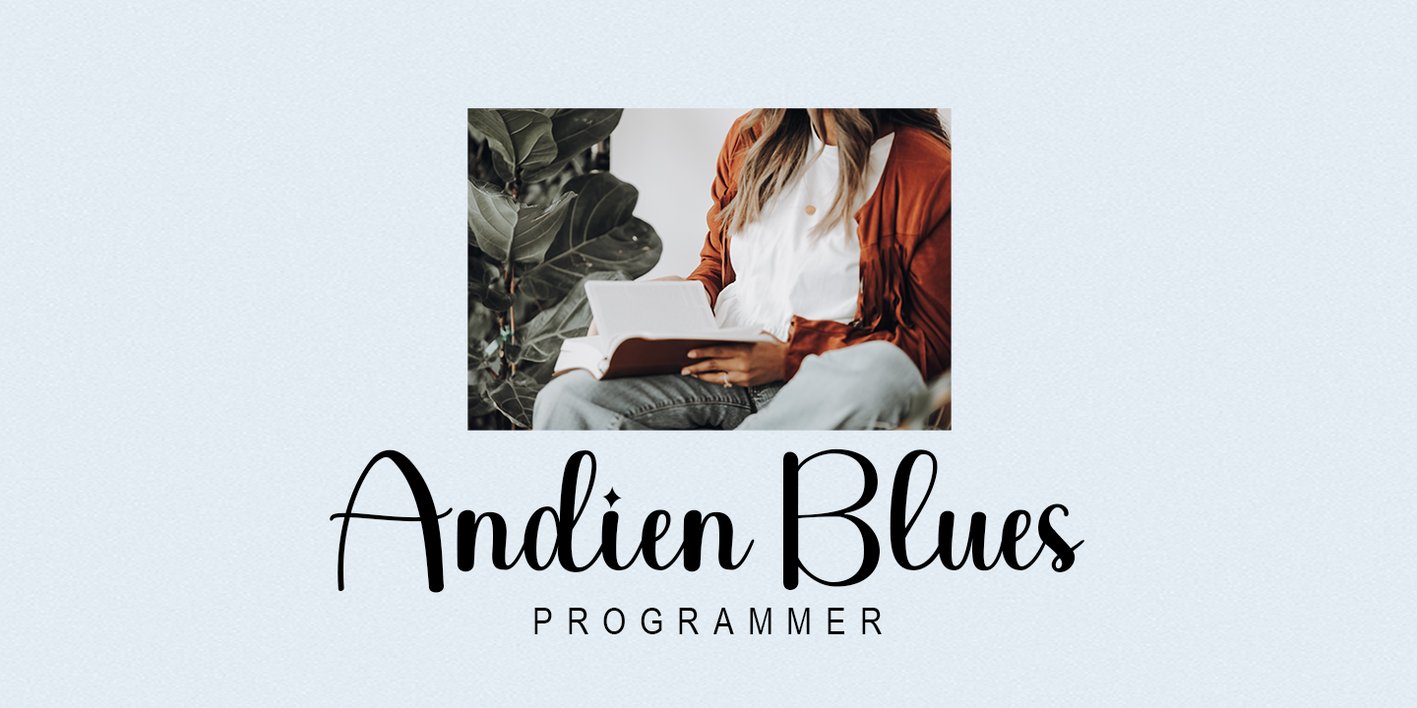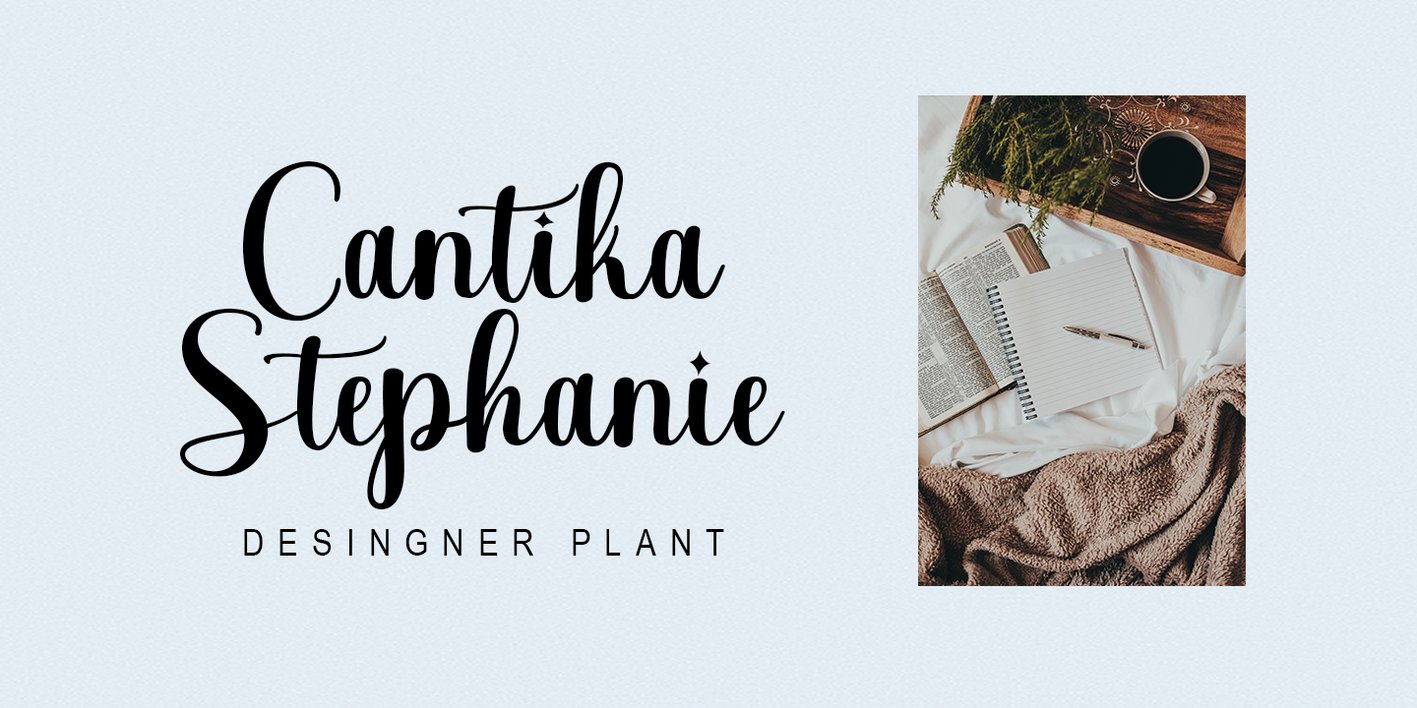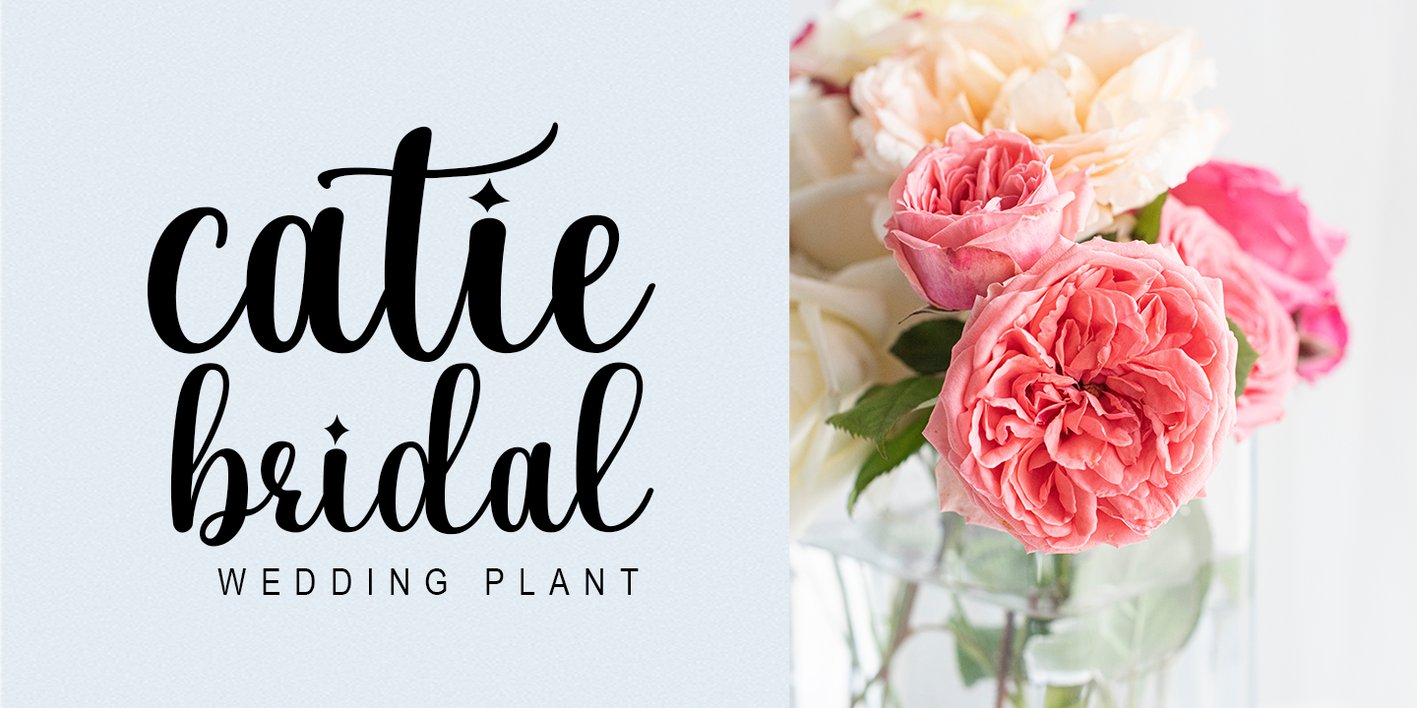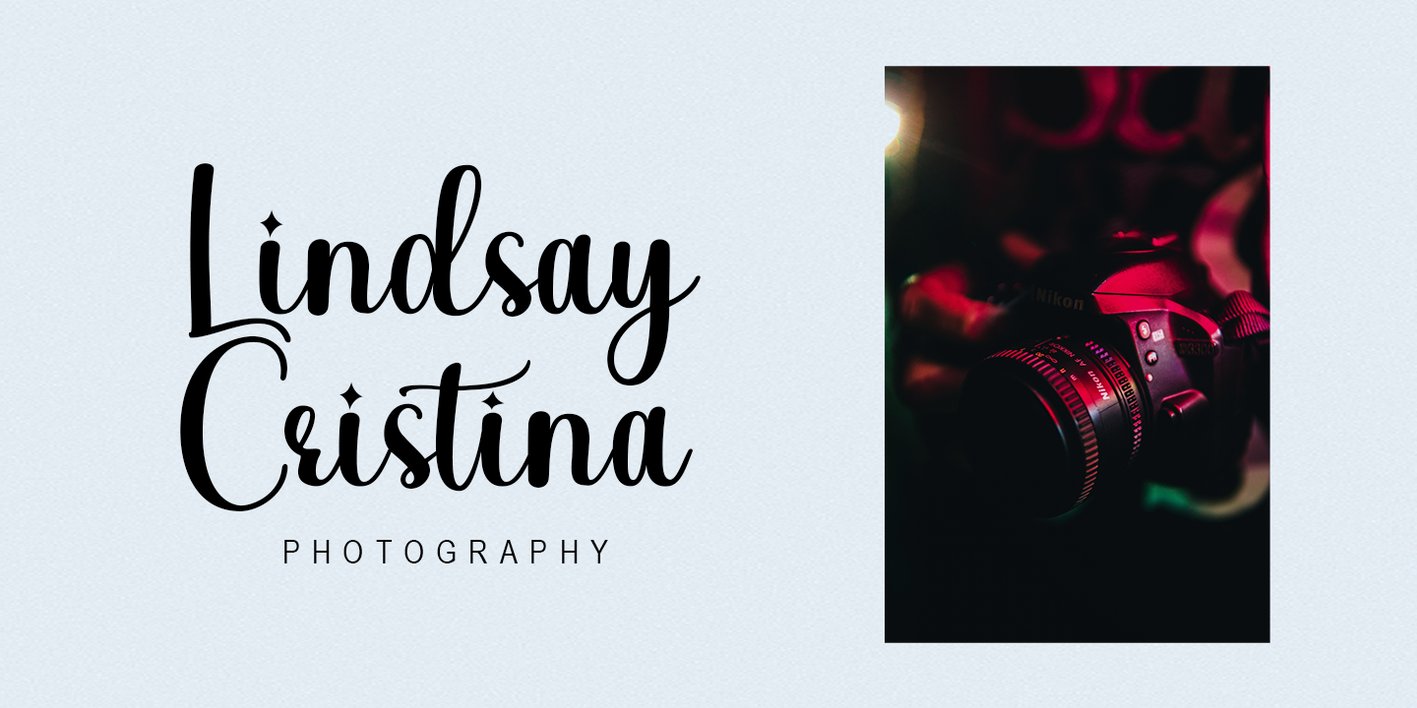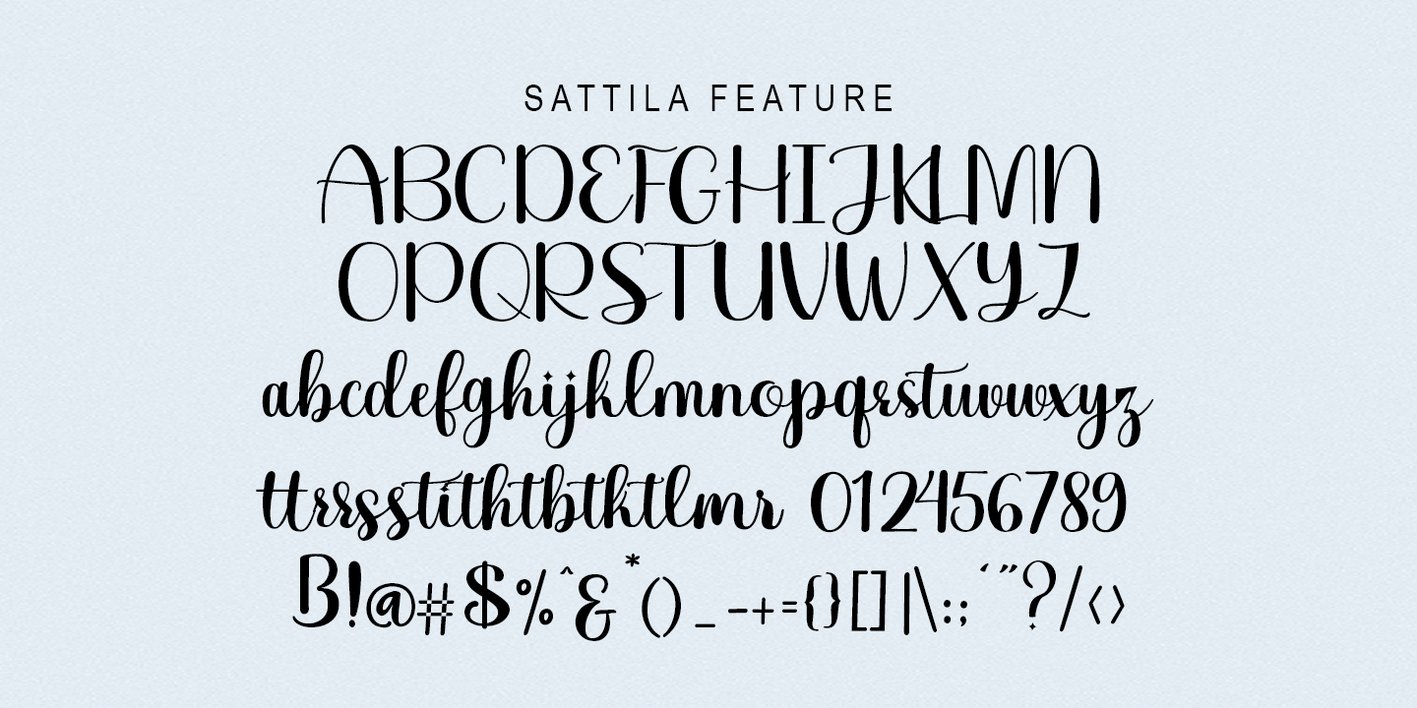
Sattila Font
Sattila is an elegant script with a creative mood and perfect form, inspired by today's beautiful calligraphy. thick, balanced and varied, born for luxury and beauty. In my example I show how this script can be used. It's great for logotypes, branding, wedding invitations, romantic cards, alcohol labels, packaging, name spelling and more. Sattila comes with beautiful uppercase and lowercase letters, numbers, and punctuation. In addition to the main character set, there are many alternative characters, early and late sweeps. You also get 4 font variations regular, outline, italic, distort which harmoniously complement the original text.